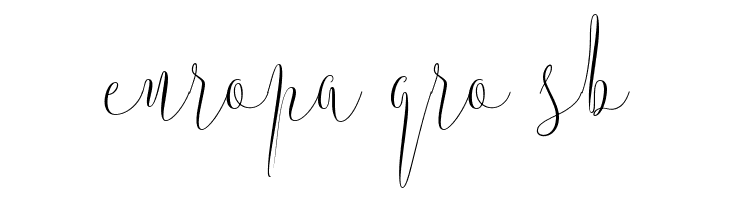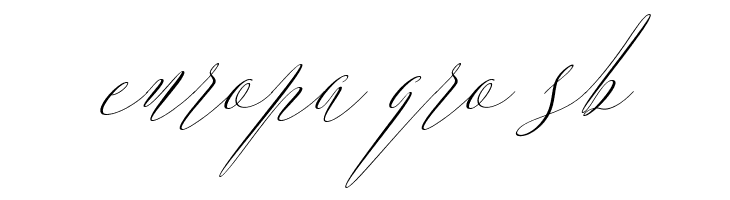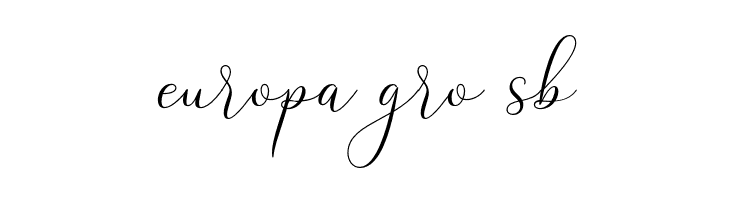
A fluid and graceful script font with interconnected letters and dynamic strokes.
An elegant and sophisticated script font with intricate, flowing characters.
A charming and elegant script font with flowing, cursive letterforms.
A playful, rounded font with smooth curves and a friendly appearance.
An elegant and flowing script font with ornate uppercase letters and smooth lowercase connections.
A bold, playful handwritten font with thick strokes and a whimsical style.
A delicate and elegant script font with flowing, cursive letterforms.
A dynamic and fluid script font with elegant, flowing letterforms.
A playful and whimsical decorative font with bold, curvy characters.
An elegant script font with flowing, cursive letters and refined swashes.
A playful and elegant script font with flowing, cursive letterforms.
A distressed, grungy font with a bold, eroded appearance.
A graceful, flowing script font with elegant, thin strokes and seamless character connections.
A modern, elegant script font with a flowing, handwritten style.
A fluid, cursive script with elegant, sweeping strokes.
A bold, cursive font with a playful and elegant style.
A playful handwritten font with rounded, irregular characters.
A playful, handwritten font with a casual and dynamic style.
A flowing, cursive font with elegant, interconnected letters and a handwritten style.
A modern, cursive font with interconnected, flowing letters.
A lively and elegant script font with bold, fluid strokes.
A bold, energetic script font with a playful and dynamic style.
A playful, rounded font with consistent stroke thickness and a slightly condensed style.
A bold, playful script font with a handwritten style.
A bold, distressed font with a rugged, vintage texture.
A playful, bold font with a dripping, hand-drawn style.
An elegant and whimsical font with flowing, interconnected letterforms.
A flowing, elegant handwritten font with a casual and sophisticated style.
A whimsical and playful script font with decorative swirls and interconnected letters.
A playful, decorative font with bold outlines and a whimsical style.
A playful, outlined font with a dynamic, italicized style.
A playful serif font with rounded serifs and consistent stroke width.
A slanted, handwritten-style font with consistent stroke width.
A playful, bold font with rounded edges and a whimsical style.